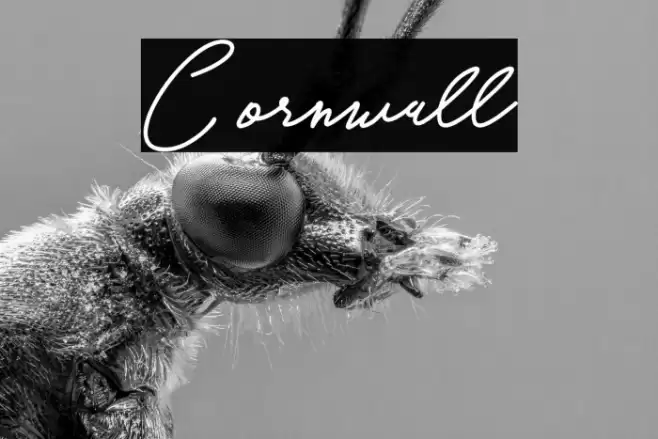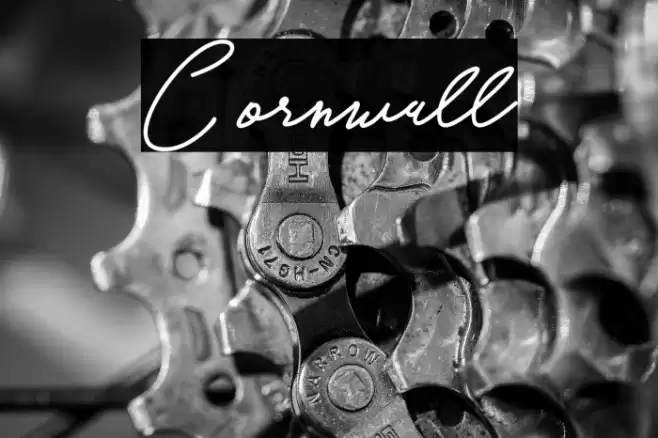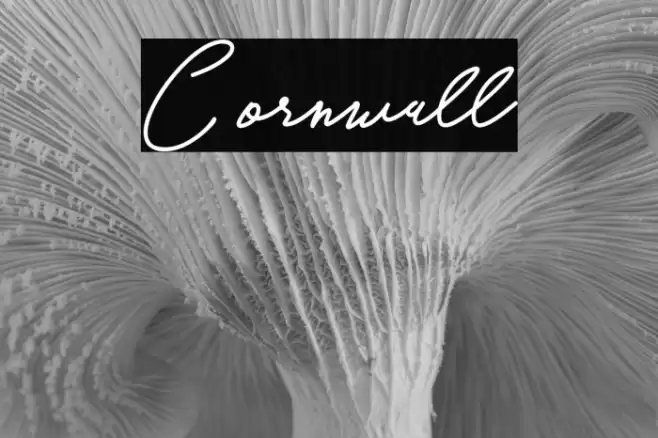
Cornwall Font
Cornwall Description
This elegant script font features a flowing, cursive style that mimics natural handwriting. The uppercase letters are tall and slender, with graceful curves and a slight slant, giving them a sophisticated appearance. The lowercase letters are more compact, maintaining the fluidity and connectedness typical of cursive writing. The numbers are consistent with the overall style, offering a harmonious blend of curves and straight lines. This font exudes a sense of elegance and refinement, making it ideal for formal invitations, branding, and other projects that require a touch of class.
A graceful, cursive script font with elegant, flowing lines from Regular fonts.
- Proposed Projects: Ideal for wedding invitations, elegant branding, personal stationery, and formal event programs.
- Overall Style: Elegant
- Use Case: Invitations, Branding, Stationery